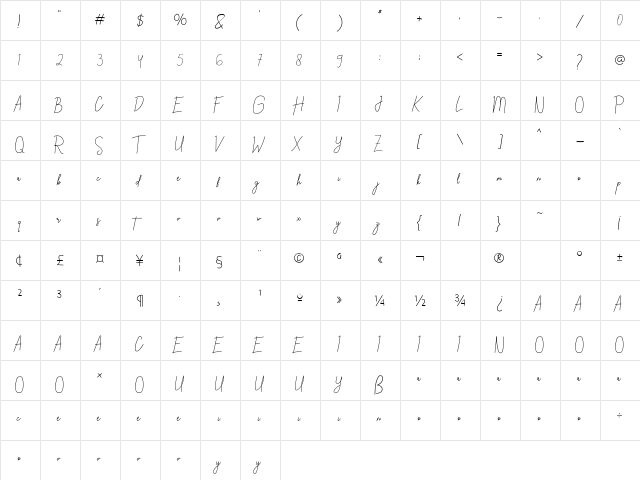
Linttang Regular
| Foundry | F Aristaputra |
| Designer | Frederik Aristaputra |
Design Context for Linttang Typeface
Linttang offers clean, dependable letterforms without strong stylistic allegiance, making it a practical choice for designers who need flexibility.